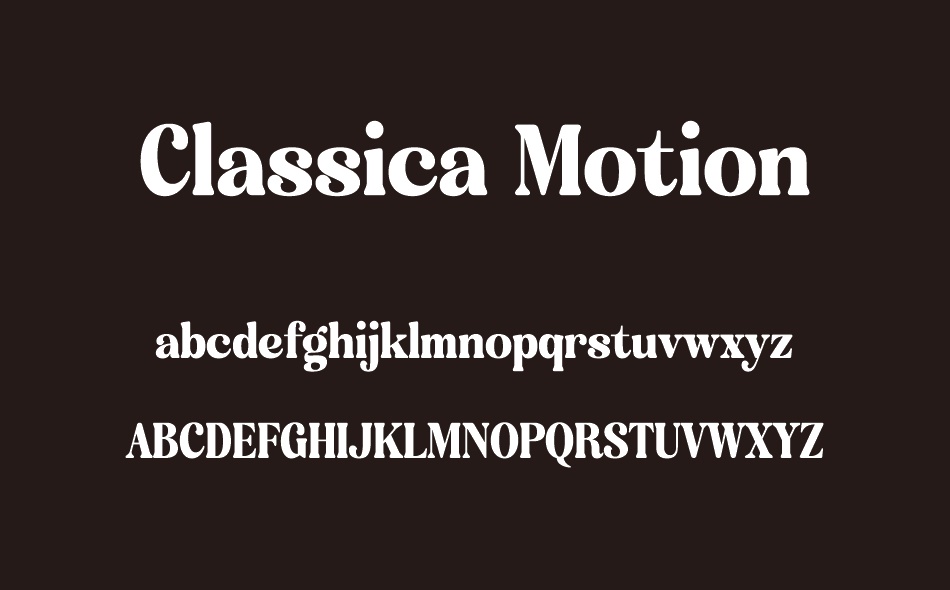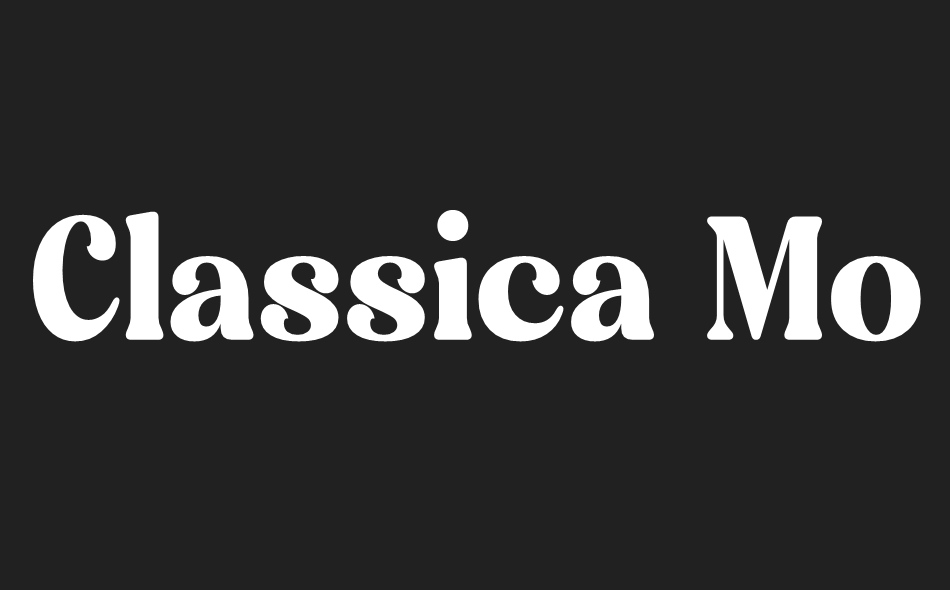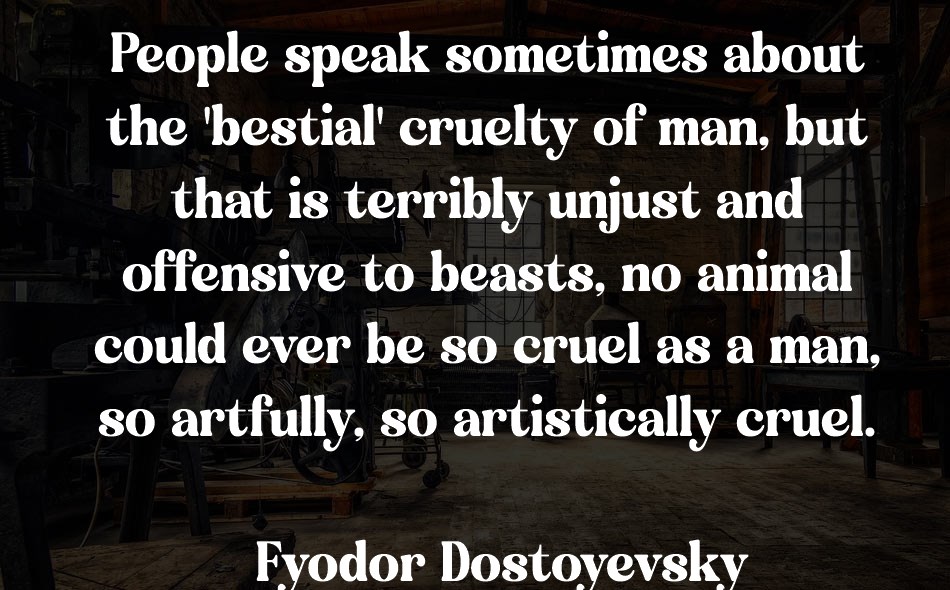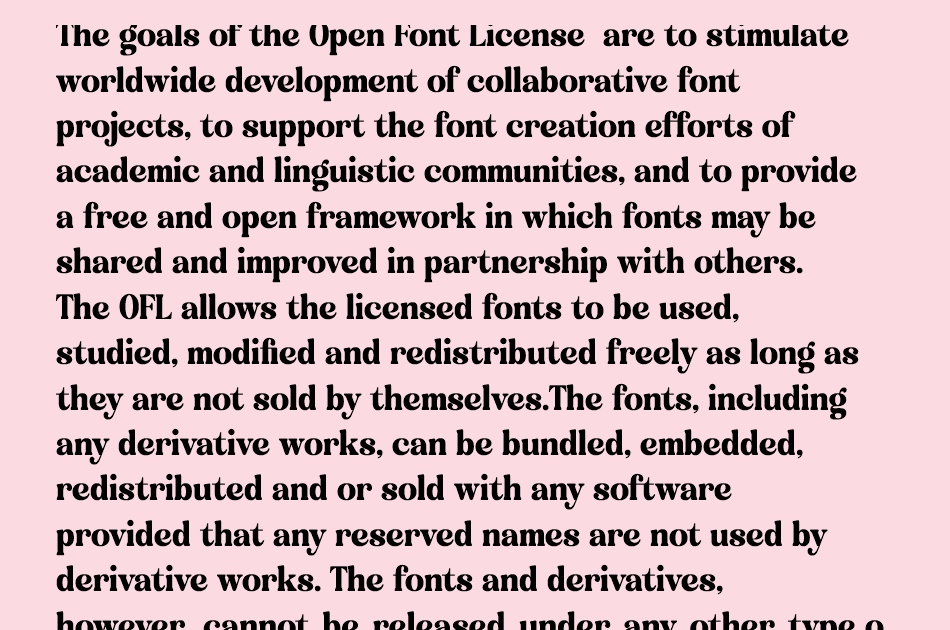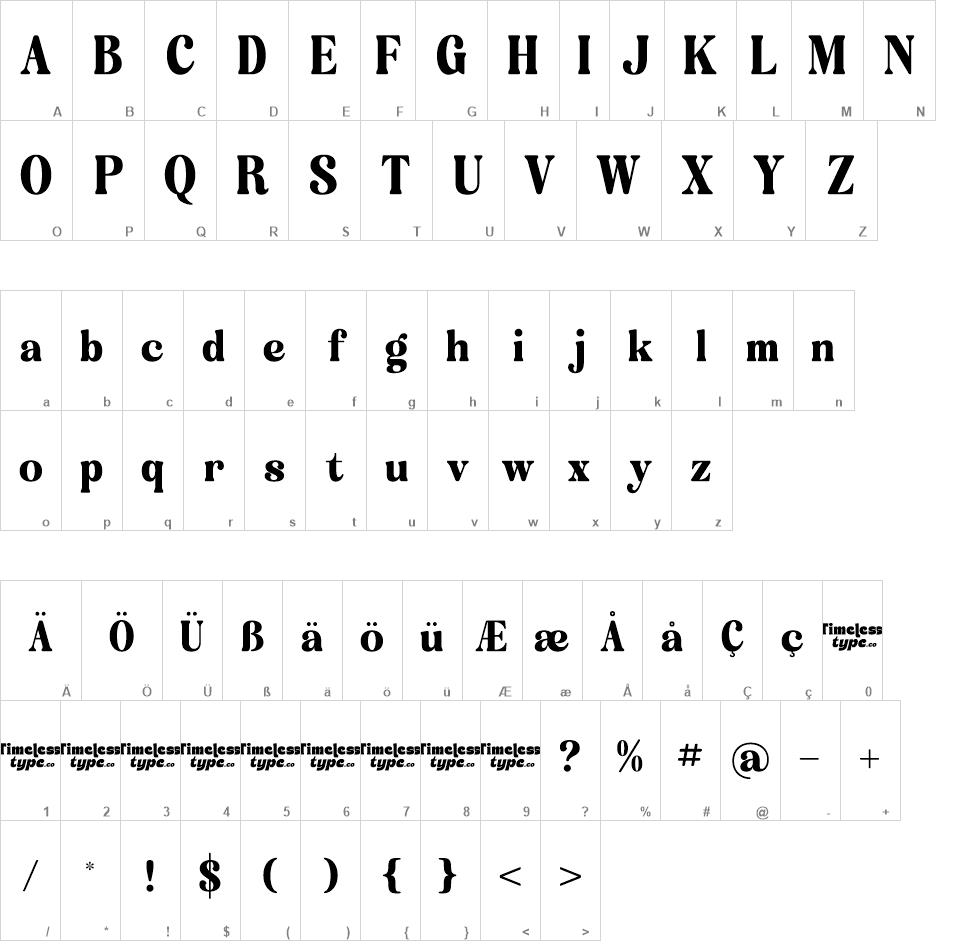
Classica Motion font
Classica Motion - Decorative Serif Font
Inject instant, unforgettable vintage charm into your next project with Classica Motion - Decorative Serif Font. This typeface expertly balances the nostalgia of the 1970s poster style with contemporary typographic precision. Defined by its bold, confident structure and generously curved decorative serifs, it captures an essence of energetic retro elegance. Use it to ensure your headlines and display text demand immediate attention and convey a sense of playful sophistication and robust visual character.
Unlock unparalleled creative customization with hundreds of unique assets. Classica Motion - Decorative Serif Font is equipped with an extensive suite of over 426 glyphs, including 26 distinctive ligatures and 18 thoughtful alternates. These features allow designers to easily transform ordinary text into bespoke swashy masterpieces, offering deep stylistic variation perfect for creating dynamic logos, unique product packaging, and editorial titles that truly stand out in a competitive market.
Expand your design reach across every continent effortlessly. With its extensive multilingual support, Classica Motion - Decorative Serif Font adapts seamlessly across global markets, making it incredibly versatile for international projects. This reliable linguistic foundation ensures that whether you are designing for Lisbon or London, the unique retro flair and professional quality of the font remain consistent, delivering a cohesive and high-quality brand identity worldwide.
Position your brand for timeless appeal and premium recognition. Classica Motion - Decorative Serif Font is the perfect choice for projects requiring a dominant, yet approachable visual voice. It excels in retro apparel branding, sophisticated food and beverage packaging, vintage event invitations, and high-impact magazine editorials. Invest in this typeface to give your visual communication a memorable, decorative serif foundation that feels both classic and freshly dynamic.